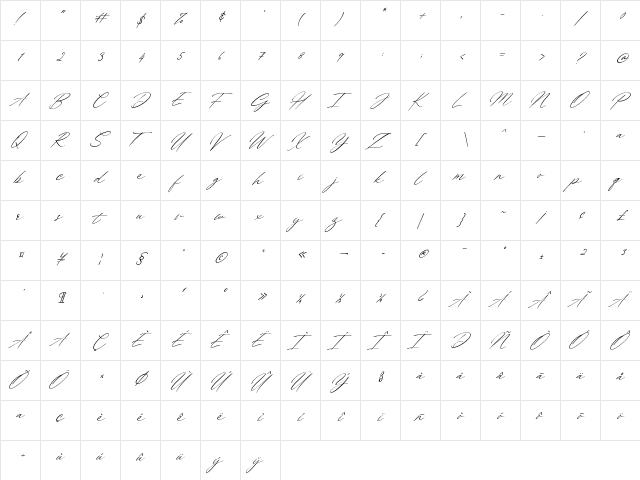
Billie Bonnie Italic Regular
Design Context for Billie Bonnie Italic Typeface
Billie Bonnie Italic is a composed and adaptable typeface that performs quietly and consistently across a wide range of design contexts. The dynamic lean of this cut emphasises speed and emphasis in any layout.
Pro Tip: Try Billie Bonnie Italic for annotation and caption copy alongside an upright companion — the contrast in angle creates a dynamic but ordered typographic system.